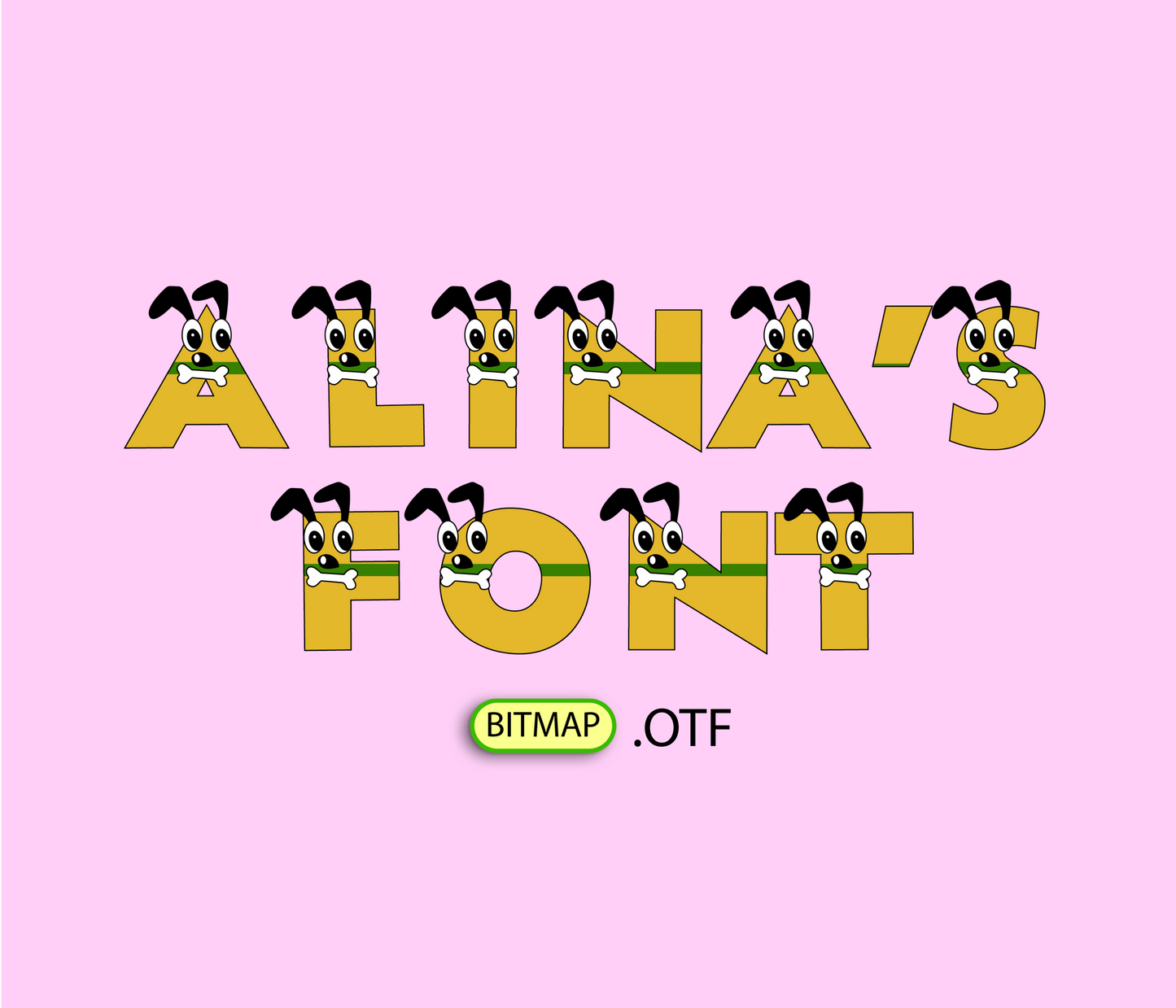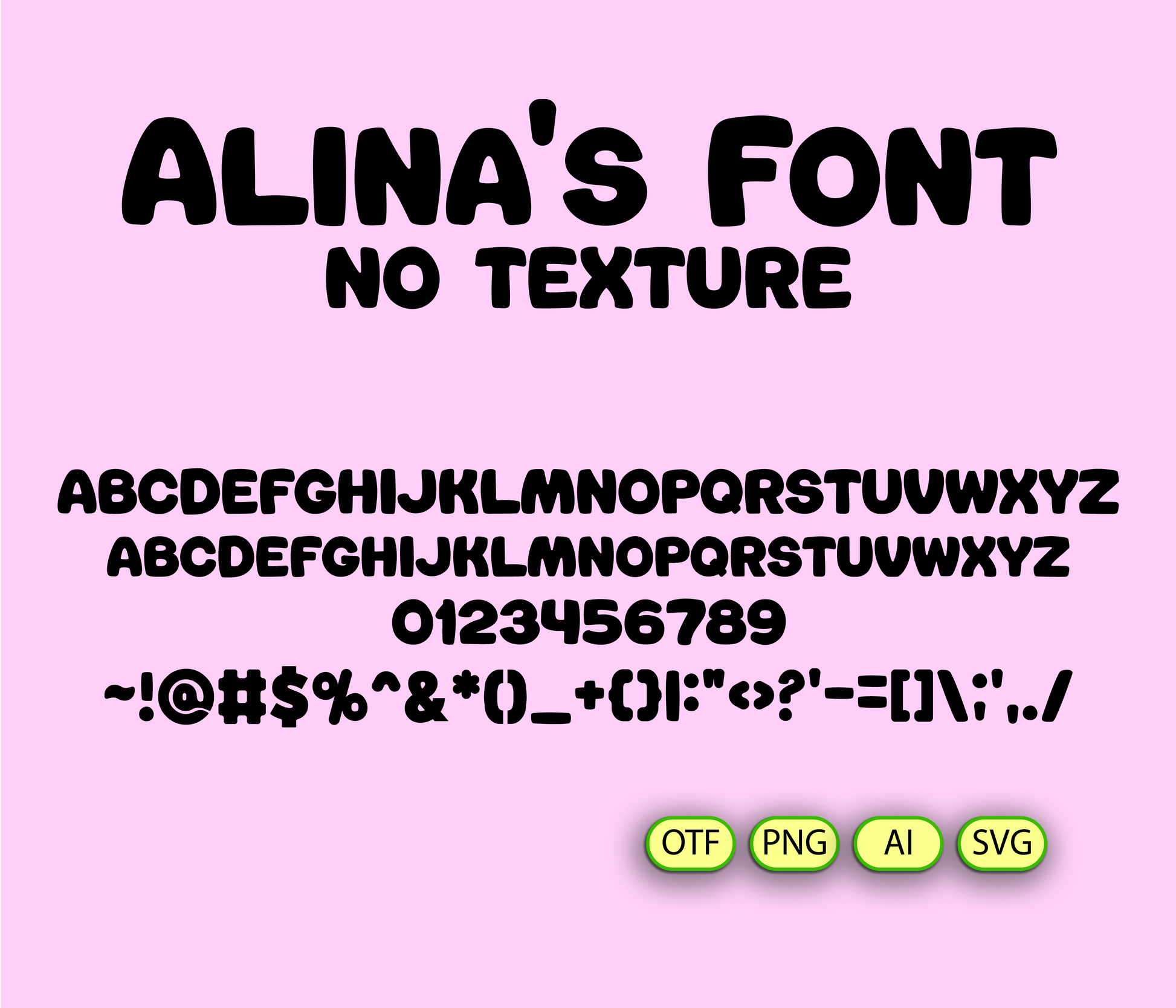
Loyal Faithful Pup Pattern Font
Loyal Pup Font Textured Faithful Companion Style
Step into the heartwarming world of loyal friendship and playful adventures with our Loyal Pup font, capturing the essence of canine devotion and joyful companionship. Perfect for pet events, animal lovers, family content creators, and creative professionals, this font brings the faithful, energetic spirit of four-legged adventures to your projects. Create adorable invitations, pet-themed merchandise, or digital content with the warm, loyal energy of beloved companion tales.
Our Loyal Pup font features smooth, flowing strokes and friendly characters reflecting the devoted yet playful aesthetic of canine adventure scenarios. Ideal for: